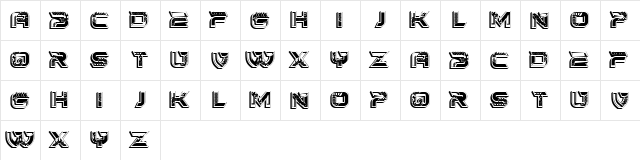
Bambola Regular Font Preview
Bambola Regular
Design Context for Bambola Typeface
Bambola is a composed and adaptable typeface that performs quietly and consistently across a wide range of design contexts.